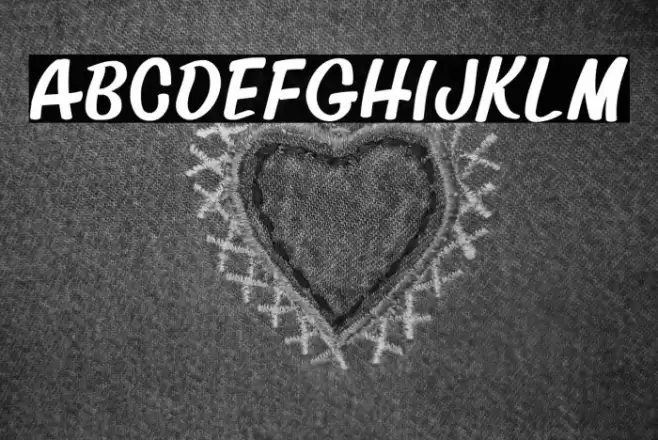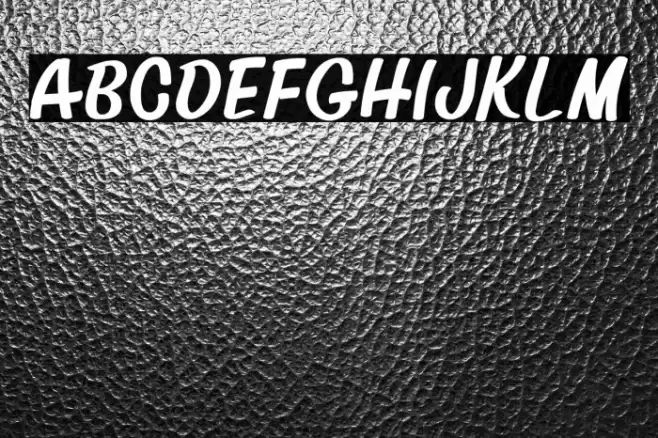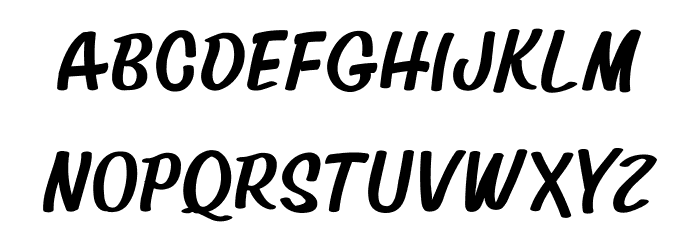
David And SovhieDEMO Sans Font
David And SovhieDEMO Sans Description
This font features a bold and dynamic style with a slight slant, giving it a sense of movement and energy. The uppercase letters are crafted with smooth curves and consistent stroke widths, creating a harmonious and visually appealing appearance. The font's design is clean and modern, making it suitable for a variety of applications. The characters are well-proportioned, and the overall aesthetic is both professional and approachable. The absence of lowercase letters and numerals suggests a focus on impactful headlines or titles. The font's unique style makes it stand out, while still maintaining readability.
A bold, dynamic font with a slight slant and smooth curves, ideal for impactful headlines from Uncategorized fonts.
- Font: David And SovhieDEMO Sans
- Proposed Projects: This font is perfect for branding projects, advertising campaigns, and any design work that requires a strong, modern look. It can be used effectively in posters, banners, and social media graphics.